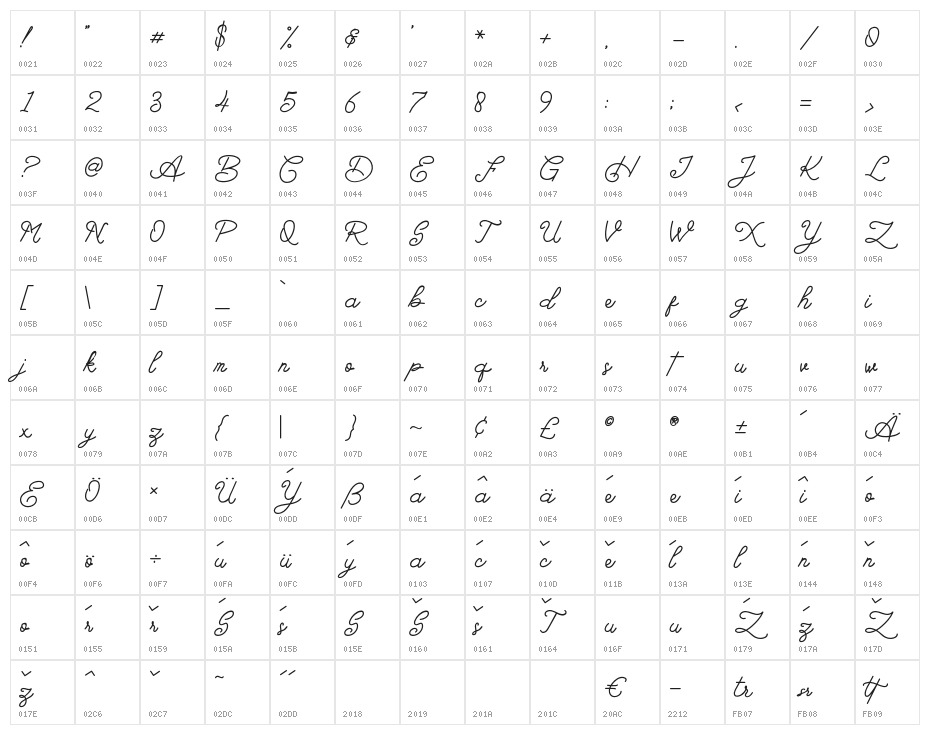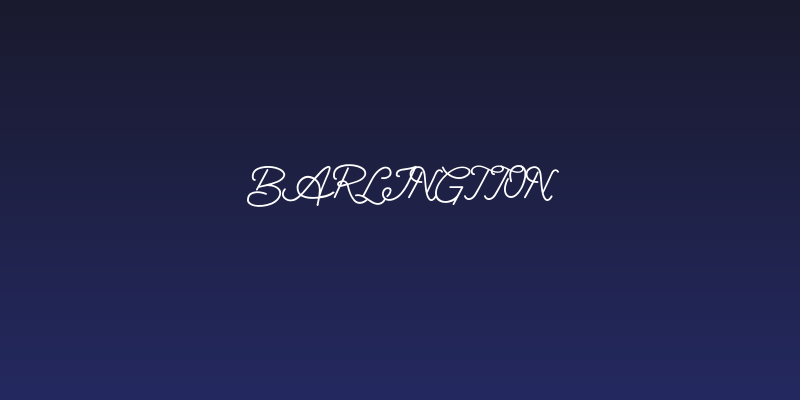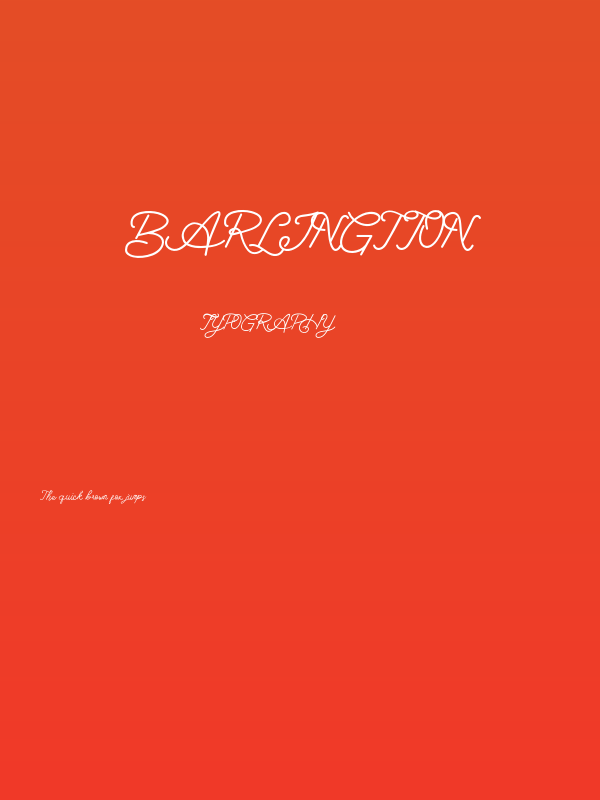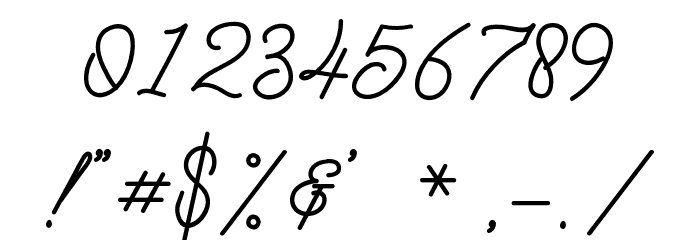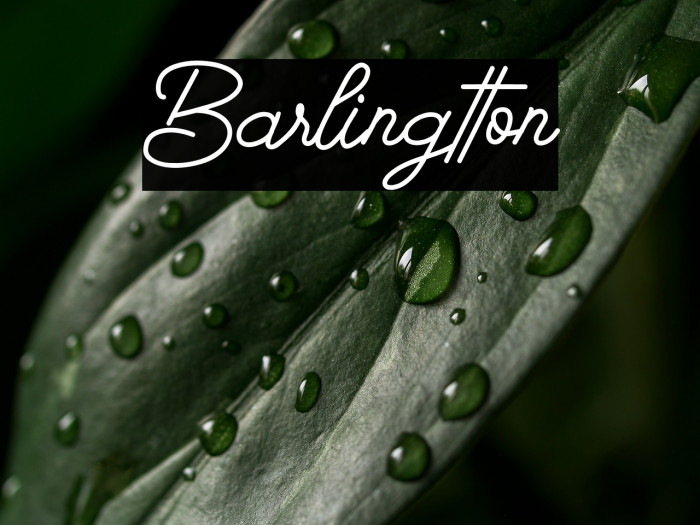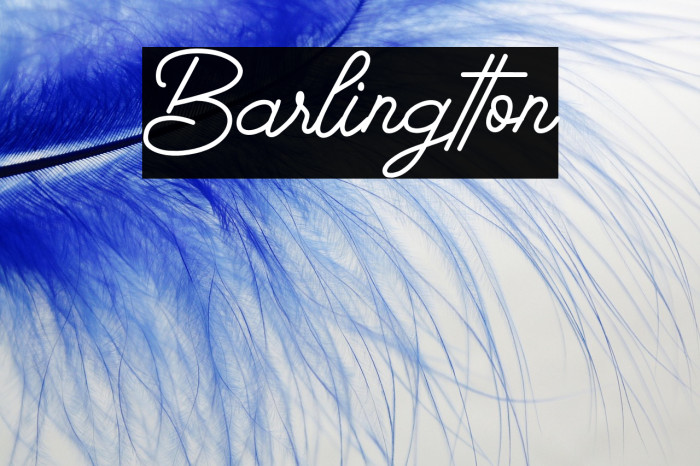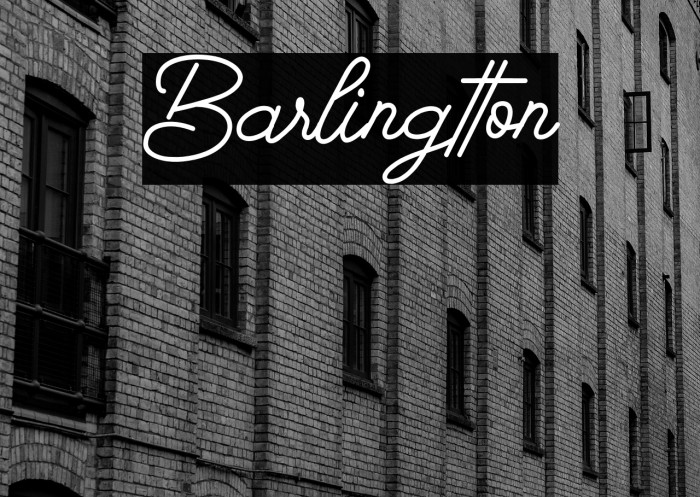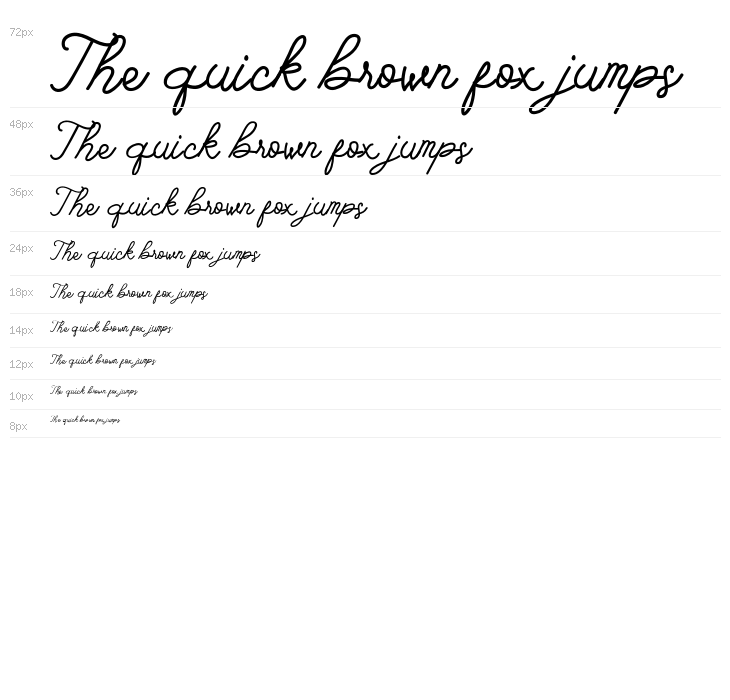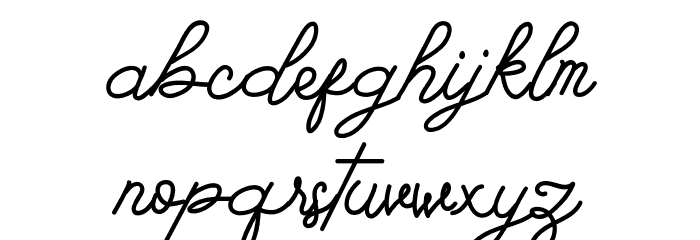
Barlingtton Font
Barlingtton Description
This font exudes a classic and elegant script style, characterized by its flowing, cursive letterforms. The uppercase letters are ornate and interconnected, while the lowercase letters maintain a consistent slant and fluidity, enhancing the font's sophisticated appearance. The numerals are designed with a similar cursive flair, ensuring a cohesive look across all characters. Special characters and punctuation are seamlessly integrated, maintaining the font's overall aesthetic. This script font is perfect for projects that require a touch of elegance and formality.
| Proposed Projects | Ideal for wedding invitations, elegant branding, formal event programs, and high-end product packaging. |